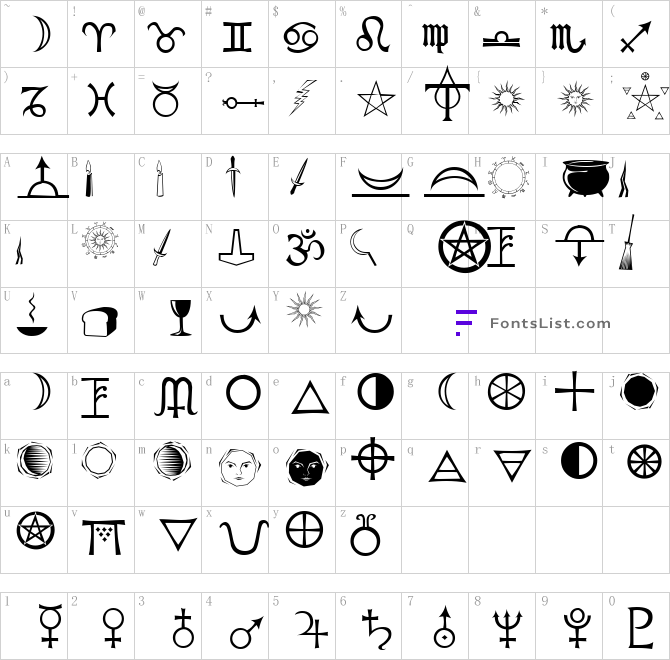
• Font Name:PR Astro
• Subfamily:ical
• Subfamily:Alts:Astrological
• Full Name:Astrological
Astrological.ttf is a very beautiful artistic font, Astrological.ttf is widely used in the design and printing of various books and pictures,Astrological.ttf has a strong visual impact,Astrological.ttf is a commonly used font in newspapers, magazines and books, and is used in posters, e-commerce Poster design, store design, logo design, font design and other fields.Astrological.